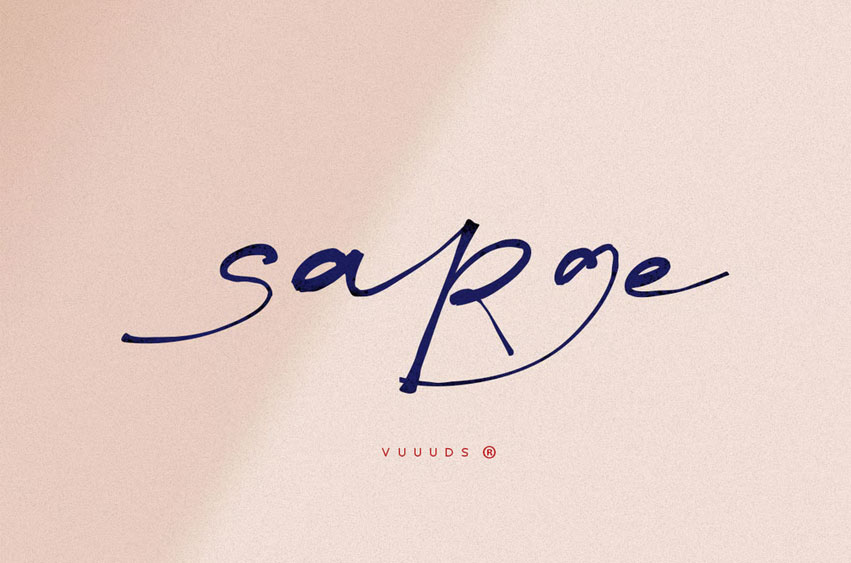
Sarge Font is a modern script font; every single letter has been carefully crafted to make your text look beautiful. With modern script style, this font will be perfect for many different projects, ex, books, children’s books, photography, watermarks, quotes, blog headers, posters, wedding, branding, logos, fashion, apparel, letters, invitations, stationery, etc.
Foreign languages support: ÀÁÂÃÄÅÆÇÈÉÊËÌÍÎÏÐÑÒÓÔÕÖØÙÚÛÜÝßàáâãäåæçèéêëìíîïðñòóôõöøùúûüýÿ